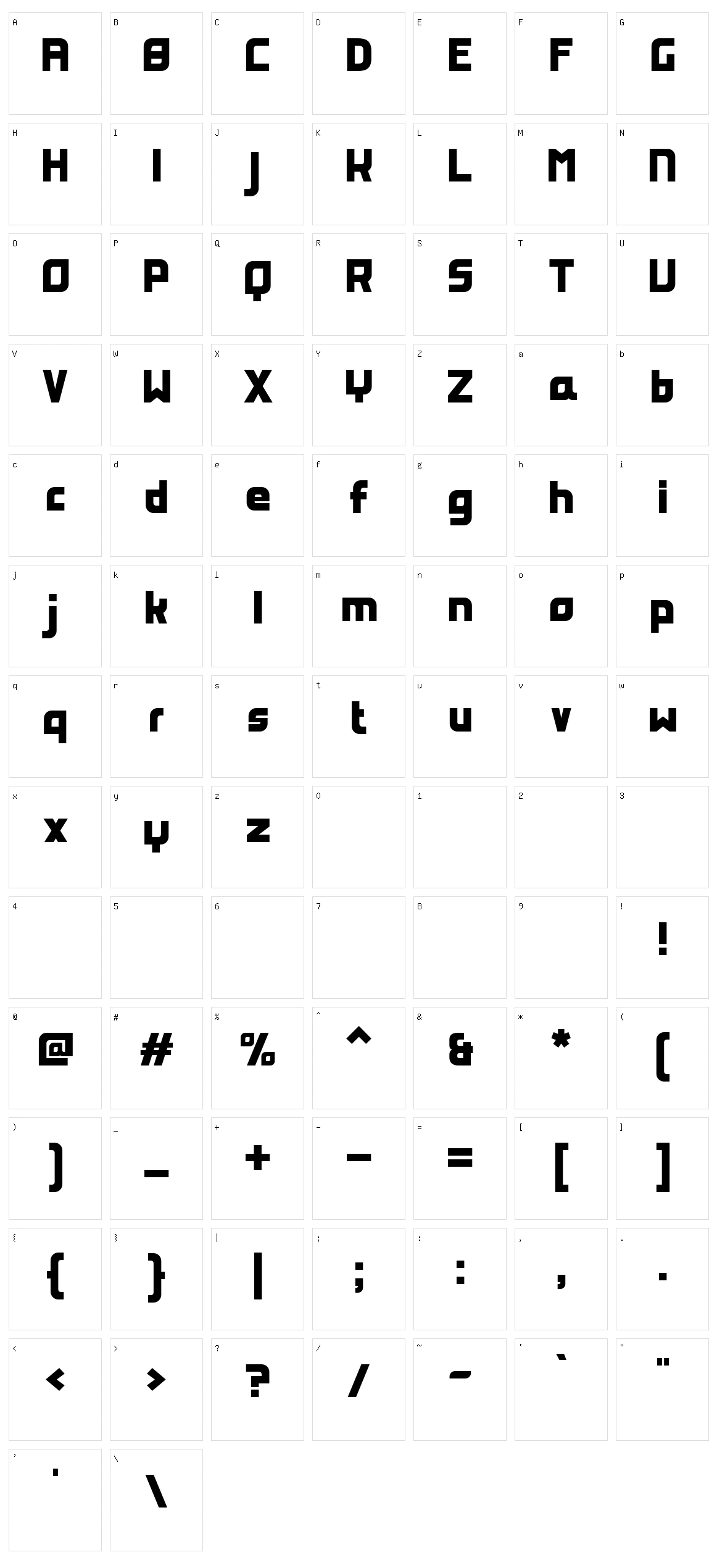
The free font Peppermint is carefully designed by Andrea Cerboneschi, showcasing a thoughtful balance of creativity and usability and falls under the Sans serif font style. When you download the ZIP file, it contains only 26.58 KB of font files, making it lightweight and quick to download. Please review the license details below to understand permitted usage and distribution rights. If license information is not available, we recommend using this font for personal projects only or contacting the author directly for commercial usage permissions.